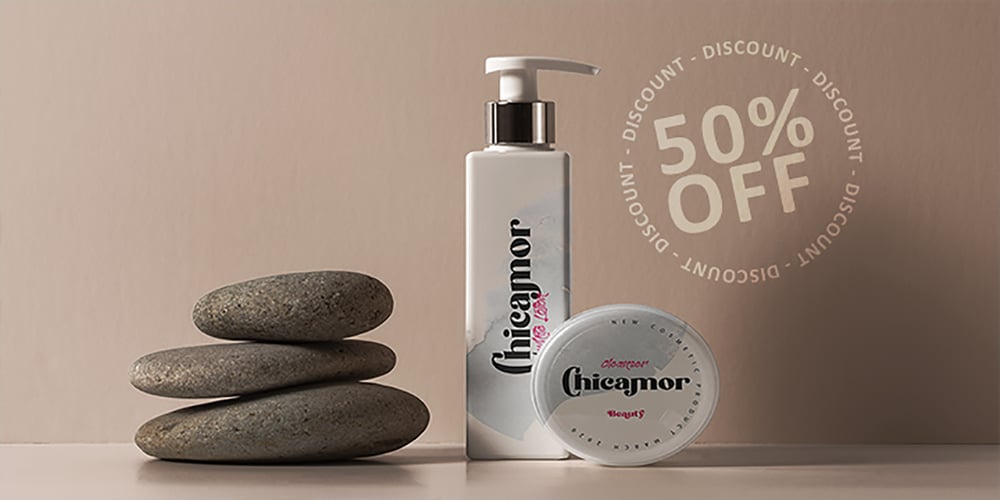
Primatama Font Family was designed by Suandana ipandemade and published by madeDeduk. Primatama contains 1 styles and family package options. Primatama is a luxury typeface which contains ligatures and alternates for many characters. It comes in a solid and rough version! A lot of stylish alternates characters will make this font suitable for your any project design.Features UPPERCASE lowercase Number & Symbol International Glyphs Alternative Uppercase Alternative lowercase Ligatures If you need anything else just shoot me on email at: dedukvic@gmail.comHope you enjoy it.